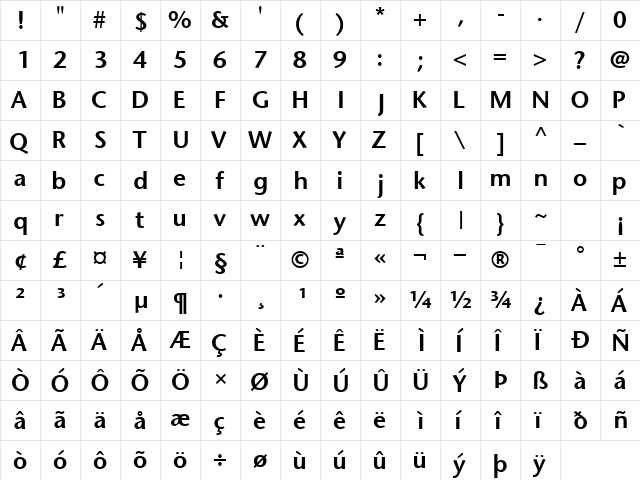
MesouranSansSSK SemiBold Font Preview
MesouranSansSSK SemiBold
Design Context for MesouranSansSSK Typeface
MesouranSansSSK is a composed and adaptable typeface that performs quietly and consistently across a wide range of design contexts. The heavy weight commands attention and anchors typographic hierarchies.
Pro Tip: Use MesouranSansSSK in both headline and body roles to test its range before committing to a single application.